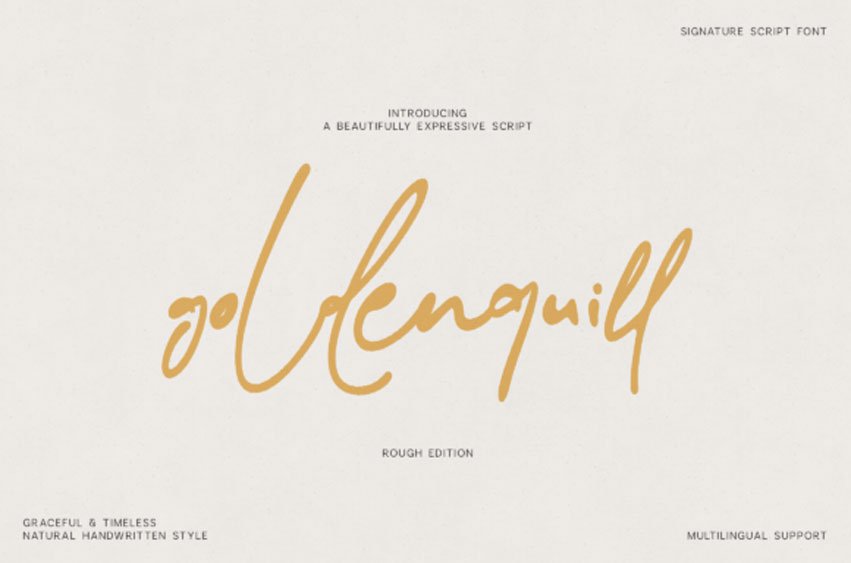
Goldenquil Rough Font is a beautifully expressive signature script font created to bring elegance, personality, and authenticity to every design. With natural flowing strokes and a refined handwritten style, Glenquil is perfect for creating sophisticated branding and memorable typography.
Whether you’re designing logos, packaging, invitations, social media graphics, editorials, product labels, photography branding, or luxury marketing materials, Glenquil adds a timeless handwritten touch while remaining highly legible.
The font comes in three carefully crafted styles:
Regular
Rounded
Rough
Each style offers its own unique character, allowing you to create everything from clean modern branding to organic handcrafted designs.
Features
3 Font Styles (Regular, Rounded & Rough)
Natural Handwritten Signature Style
Uppercase & Lowercase
Numbers & Punctuation
Currency & Special Symbols
Multilingual Support
Smooth Letter Connections